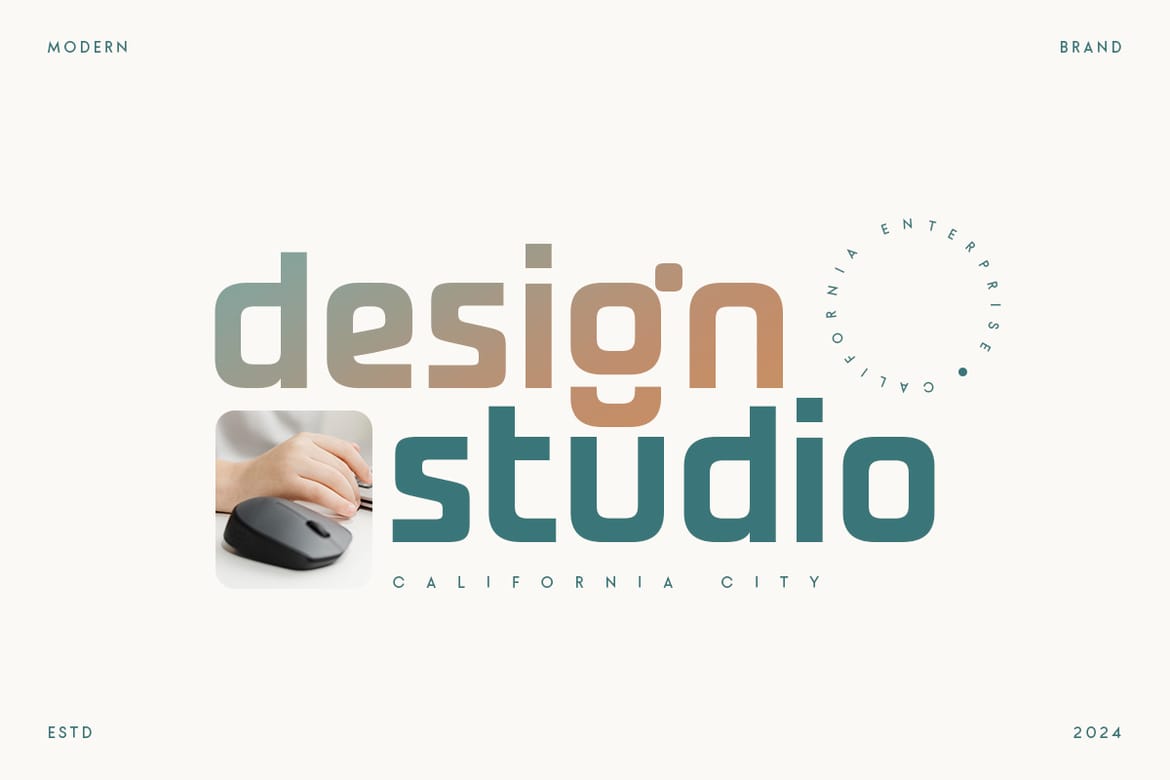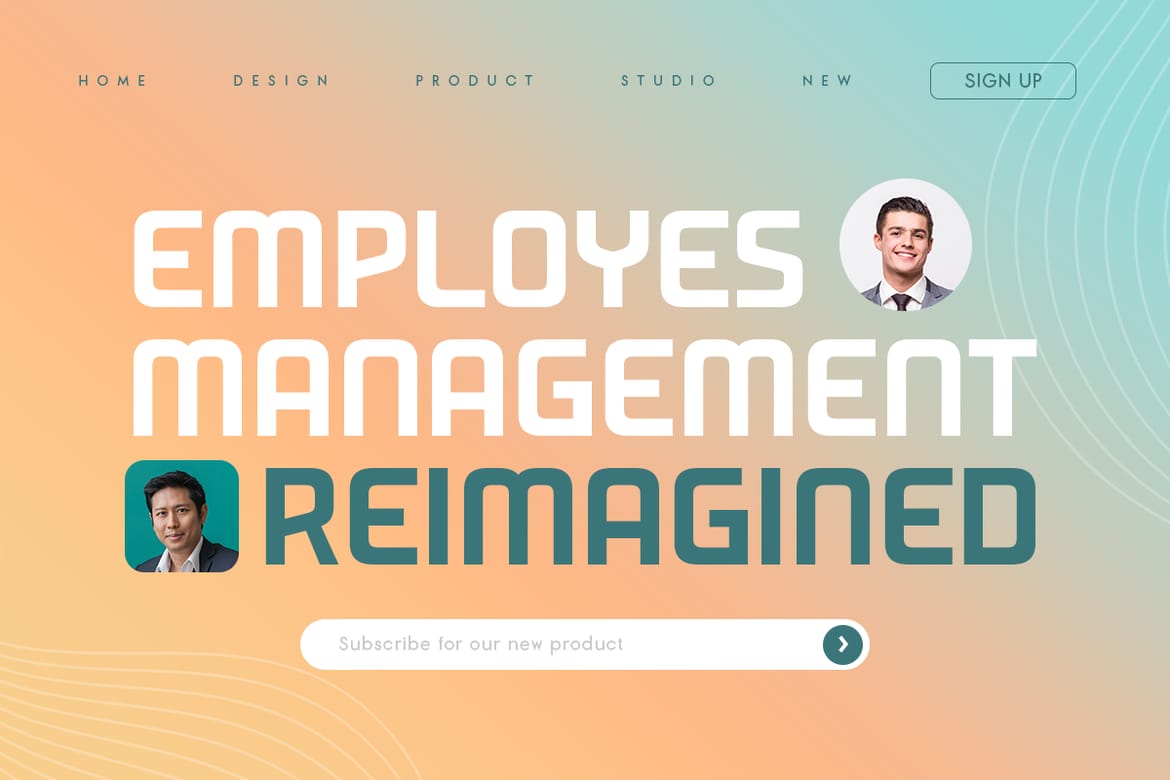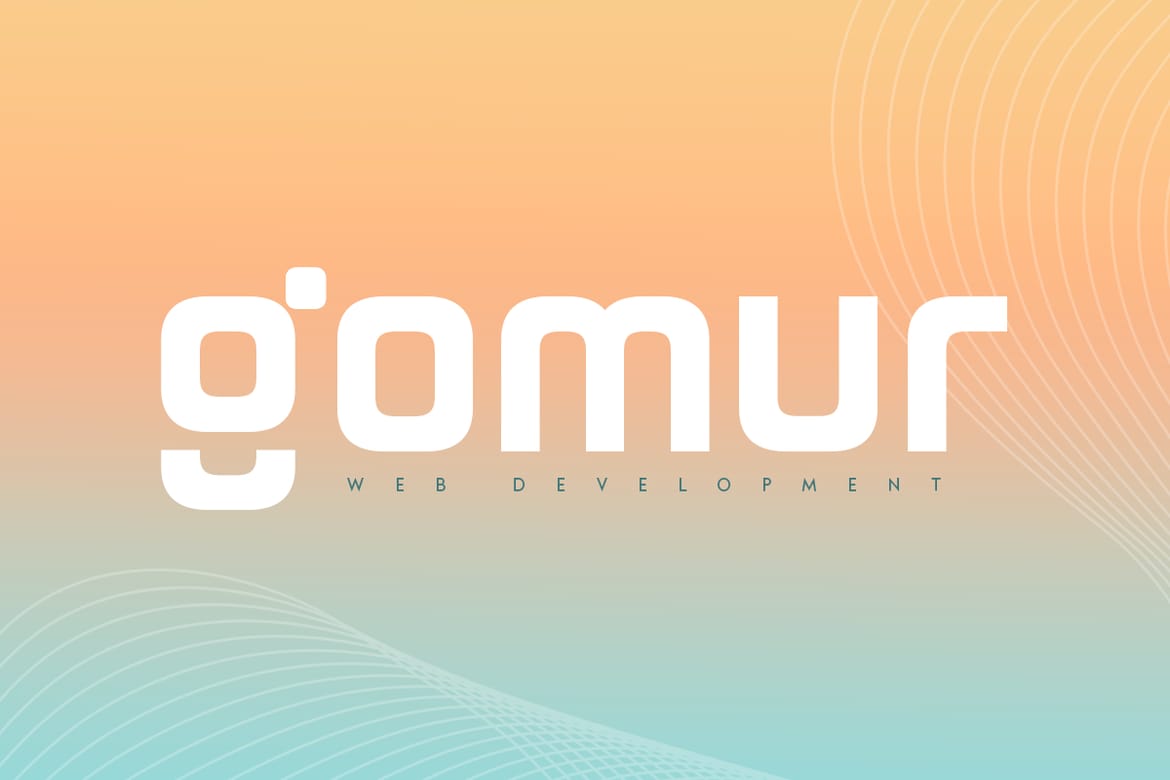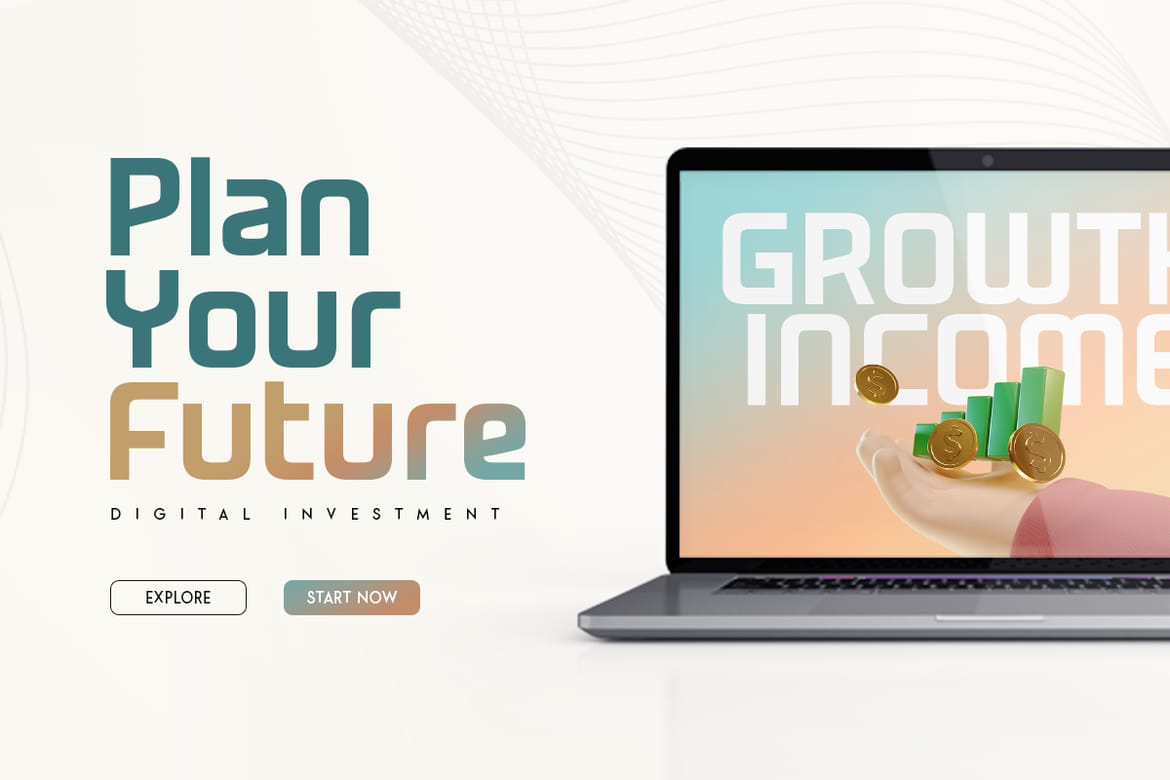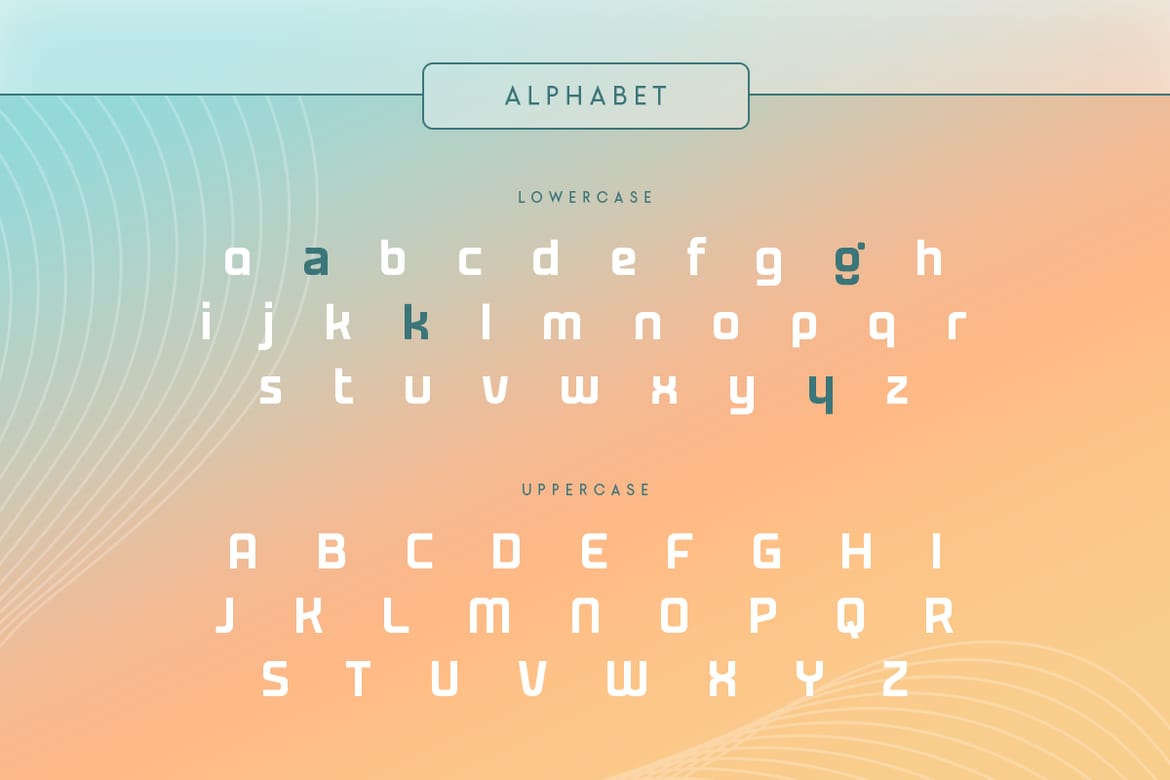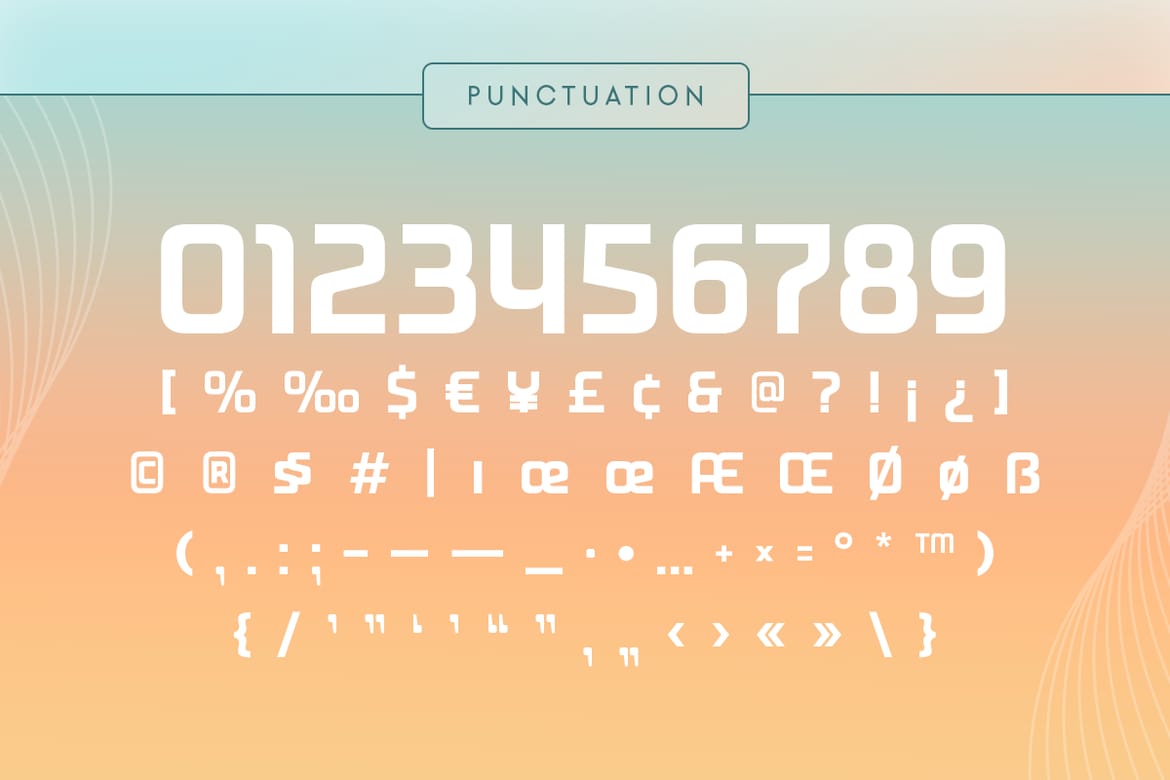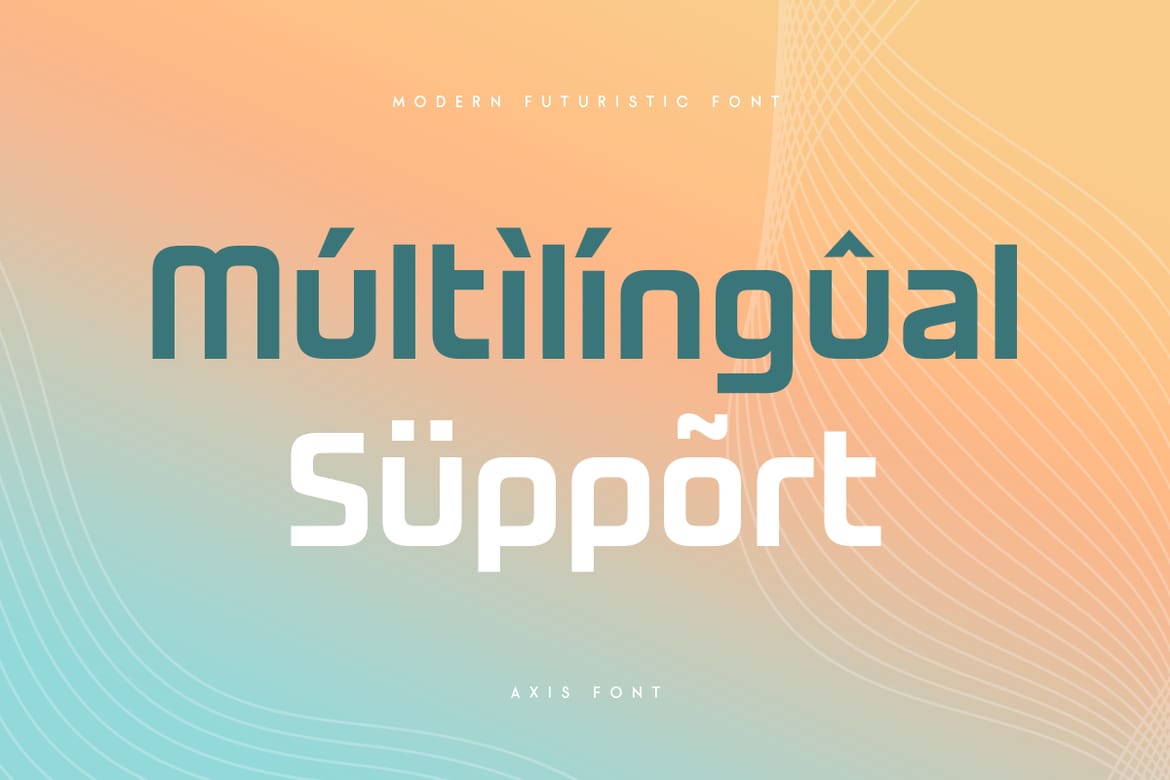
Axis Modern Unique Futuristic Techno Font is a Modern Futuristic font are prepared special for Technology, Modern, and Futuristic design needs, that created special for Logo, Title and more stand out typography for futuristic and sci-fi. It's so perfect to add your style and headline overview for technology, film, space, and futuristic theme. And specially for this font, we've ready for modern feels so enjoy to create any project that will show your main idea out.
Axis Modern Unique Futuristic Techno Font ready with:
Ready with Uppercase and Lowercase Characters
Perfect for Futuristic Techno Design
- Unique futuristic techno display font
- Uppercase and lowercase characters